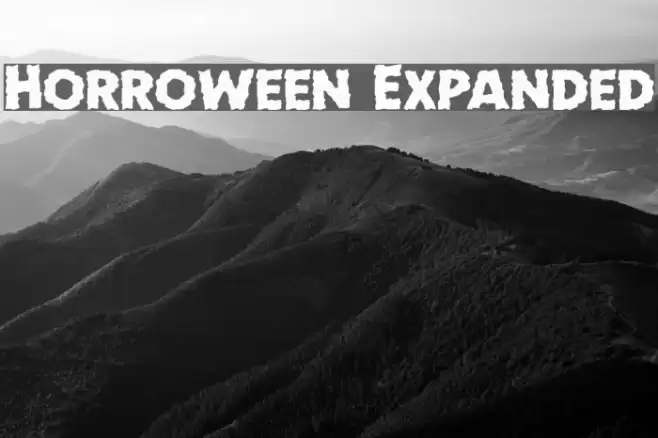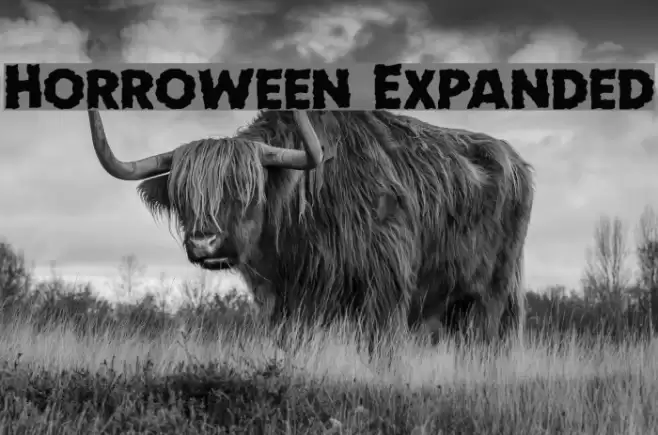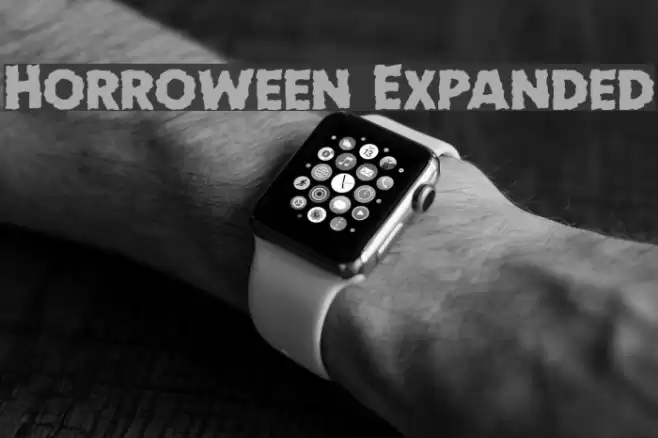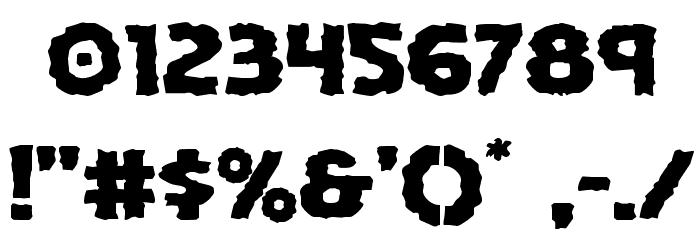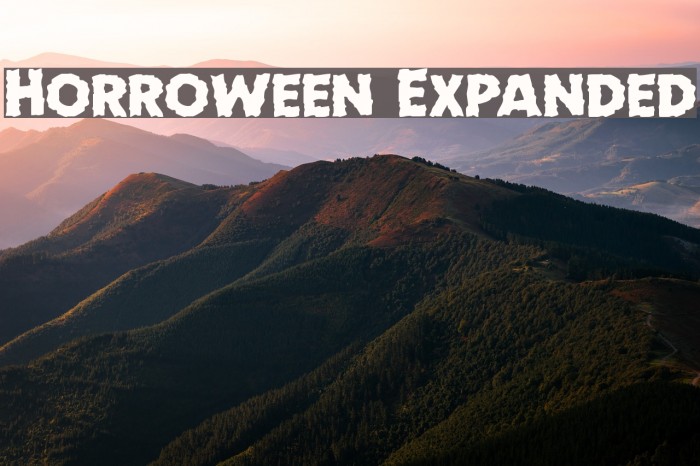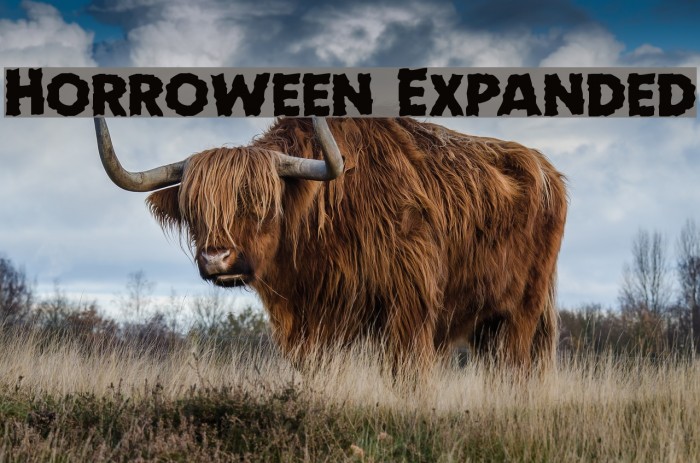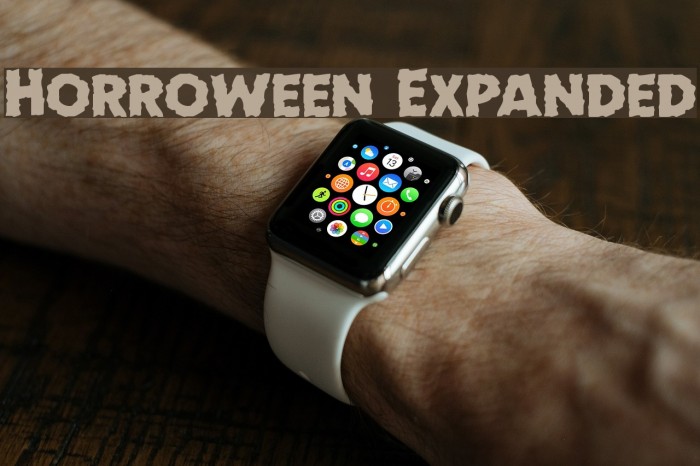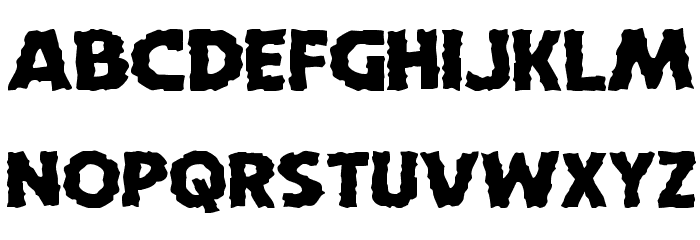
Horroween Expanded
This font features a bold and jagged design, reminiscent of classic horror themes. Each character appears to be carved or torn, with irregular edges that give it a distressed and eerie appearance. The uppercase and lowercase letters maintain a consistent style, enhancing the font's cohesive look. Numbers and special characters follow the same rugged aesthetic, making them suitable for thematic designs. The font's unique style is perfect for creating a spooky or unsettling atmosphere, ideal for Halloween-themed projects or any design requiring a touch of the macabre.
A bold, jagged font with a horror-themed, distressed appearance.
- Proposed Projects: Ideal for Halloween invitations, horror movie posters, themed event flyers, and spooky merchandise designs.
- Width: Expanded
- Overall Style: Decorative
- Use Case: Headlines, Logos, Themed Designs